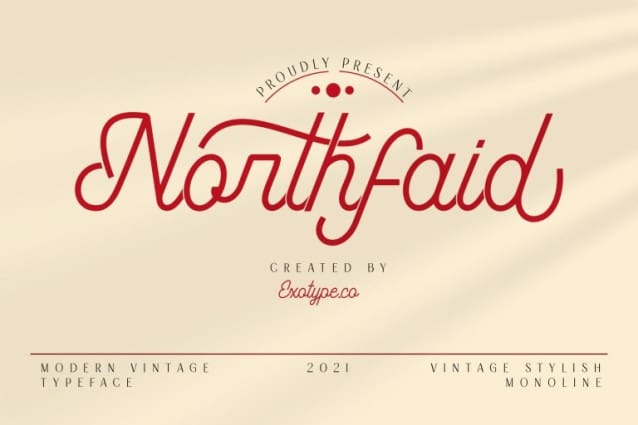
Northfaid Font
Northfaid Font, Modern Vintage Font, this font is perfect for stickers, vintage projects, craft projects, shirts, svg designs, reproductive design, branding, blogs, logos, invitations and more!